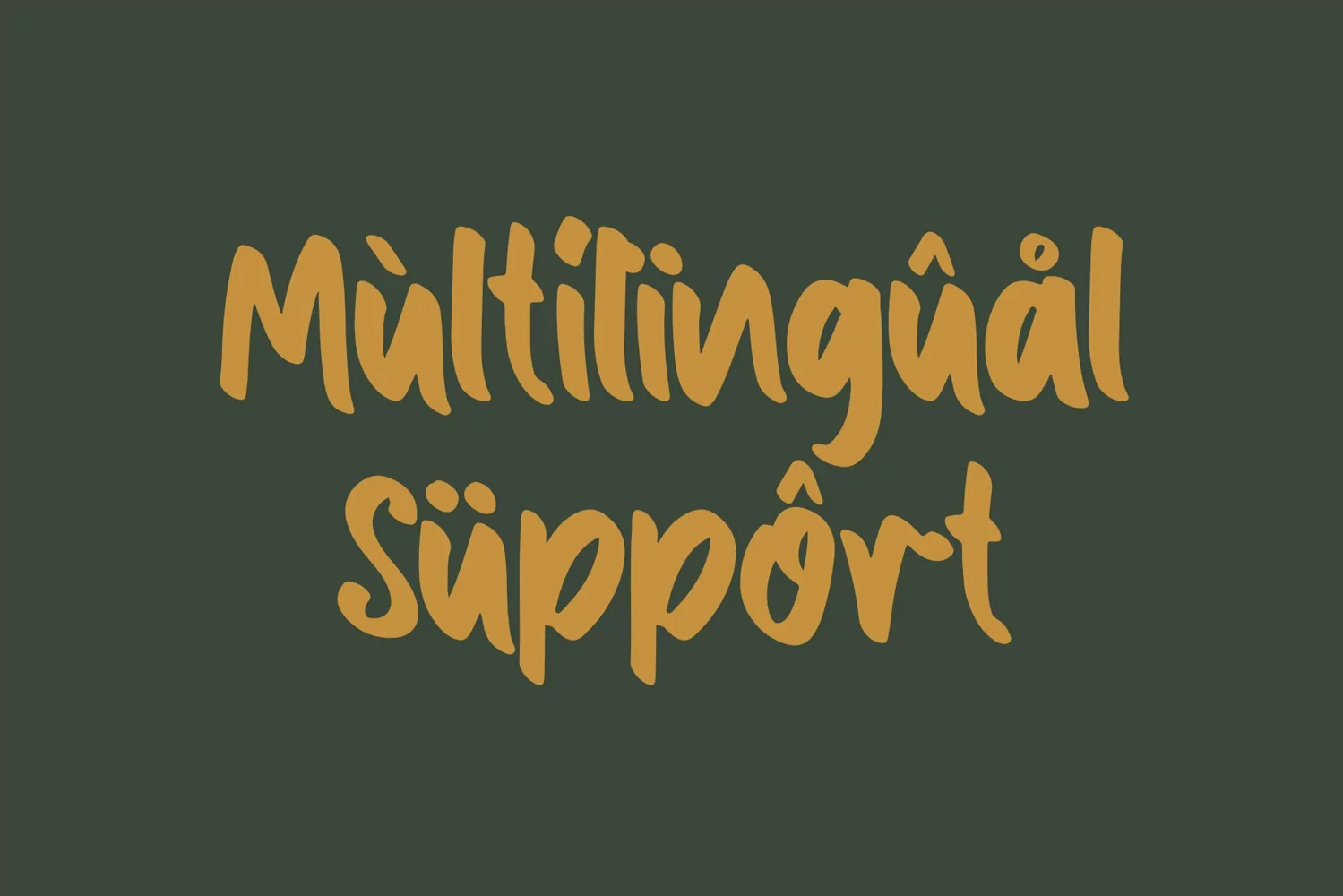
Toothless
**Toothless Font**
This pair was inspired by the playful kids poster design that i saw on some coffee shop, It was crafted by hand specially to add natural handmade feeling in its brand identity than i make it clean with pentool.
Toothless font has 170 character set included
Toothless Font is very good looking in logo, labels, product packaging, invitations, advertising and others.